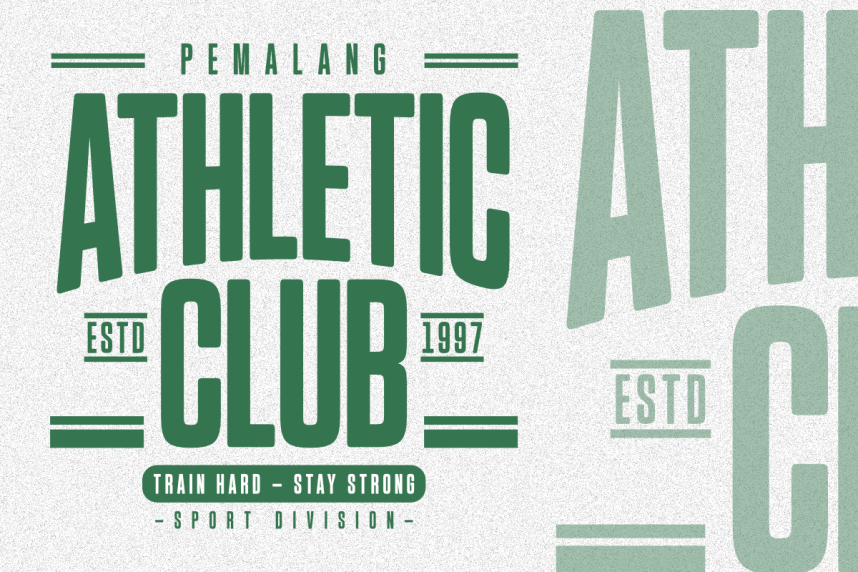
Brighter Font
Brighter Font is a bold and versatile retro sans serif font that effortlessly captures the nostalgic charm of vintage aesthetics while maintaining a clean, modern edge. Designed with a tall and solid structure, this typeface commands attention, making it the perfect choice for graphic designers, clothing brands, and Print on Demand (POD) entrepreneurs looking for high-impact visuals. Whether you are crafting trendy t-shirt designs, retro-inspired apparel, or eye-catching brand identities, Brighter provides excellent readability and a unique, stylish flair that stands out in any professional toolkit. Its smooth, slightly rounded edges give it a warm, approachable feel reminiscent of classic 70s and 80s typography, making it an essential asset for craft lovers using Cricut or Silhouette machines. Elevate your creative projects with the distinct and commanding presence of the Brighter typeface, ideal for headlines, posters, and professional merchandise.